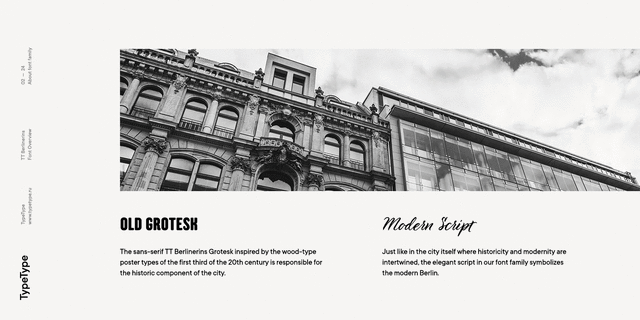
TT Berlinerins Grotesk (1)
About TT Berlinerins GroteskTT Berlinerins is a contrast pair of typefaces which is basically our tribute to Berlin. Just like in the city itself where historicity and modernity are intertwined, the elegant script in our font family symbolizes the modern Berlin, and the sans-serif inspired by the wood-type poster types of the first third of the 20th century is responsible for the historic component of the city.
The idea of this project emerged in the beginning of 2016 when we’ve met Evgenia Pestova, a calligrapher from Berlin, who shared the contemporary perspective on calligraphy and the city impressions with us. The wood-type sans-serif appeared later, after our another colleague had visited Berlin and told us his fascinating story about the things he had seen. The city is full of contrasts — it is very modern and very vintage at the same time. The photographs and the impressions from the trip have also become the basis of our project. That is how we’ve added a little of old Berlins roughness and inhomogeneity.
TT Berlinerins Grotesk consists of uppercase letters, includes a set of unusual ligatures and wide support of OpenType features: ordn, frac, sups, sinf, numr, dnom, tnum, pnum, liga, salt and two stylistic sets ss01, ss02 for the ampersand.
The typeface was designed by Ivan Gladkikh and TypeType team in 2017.